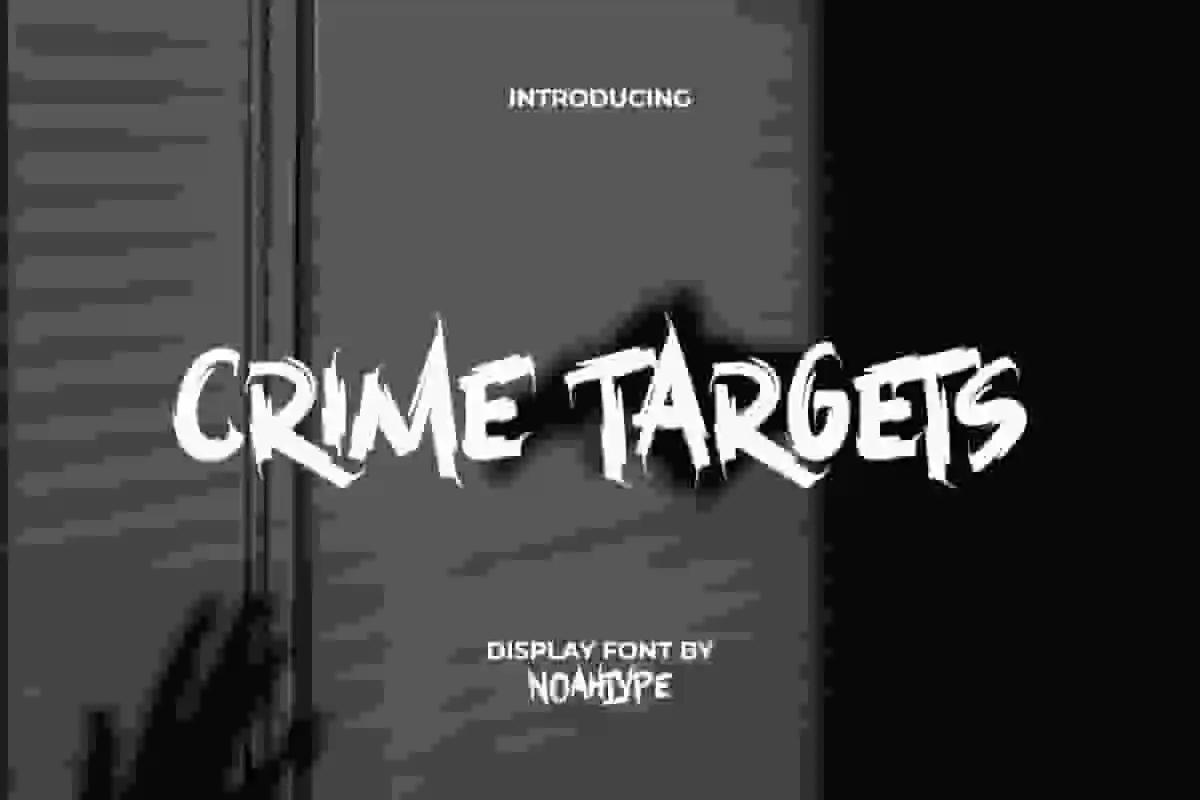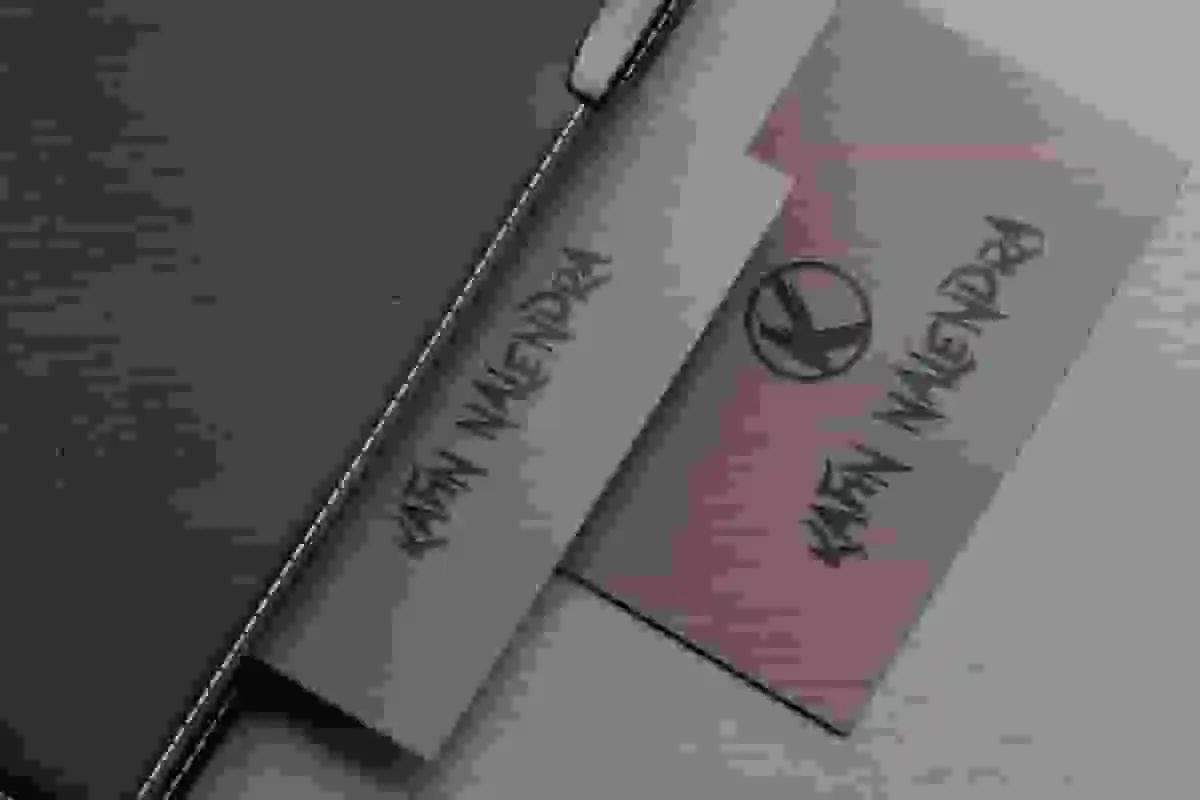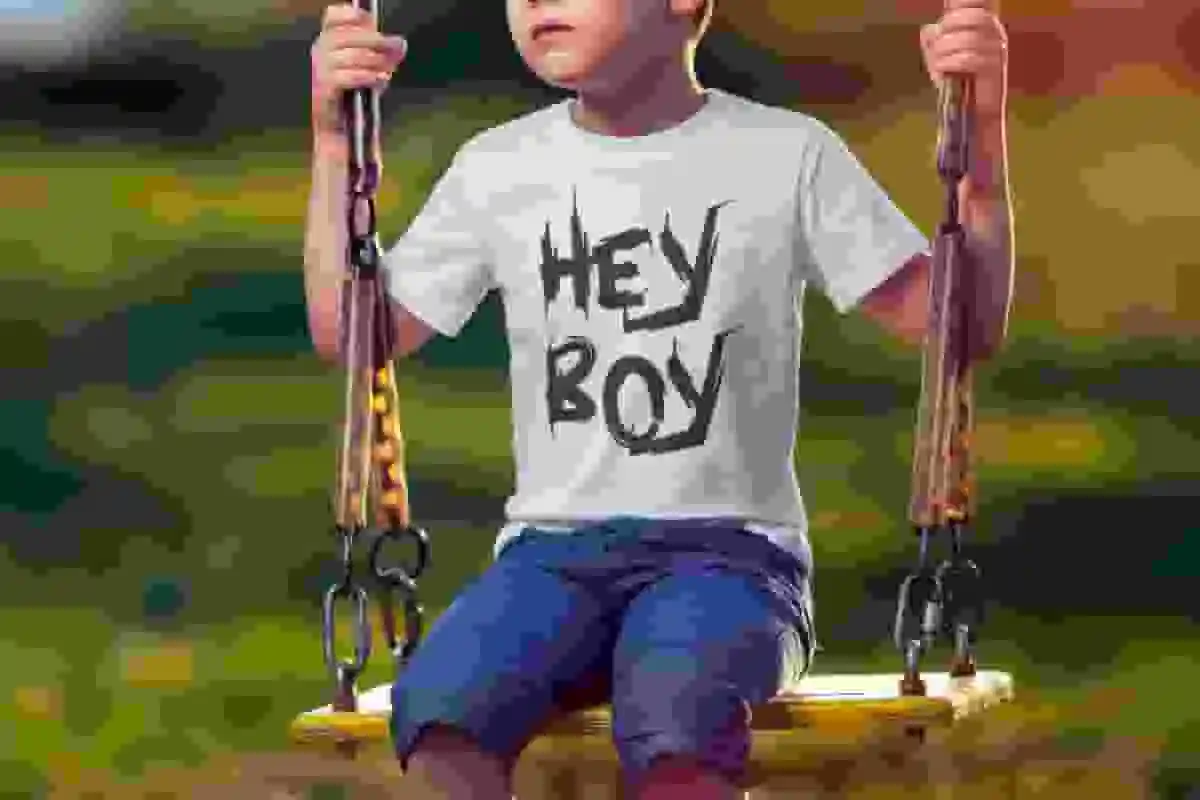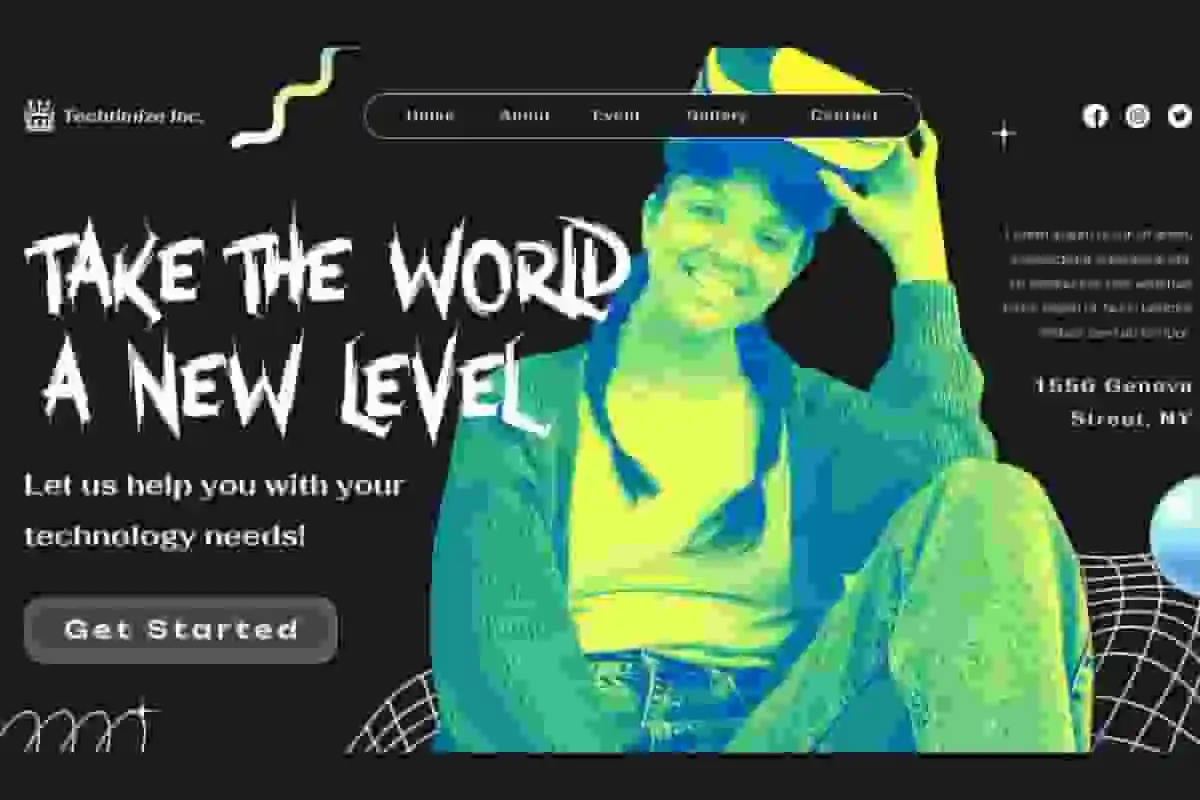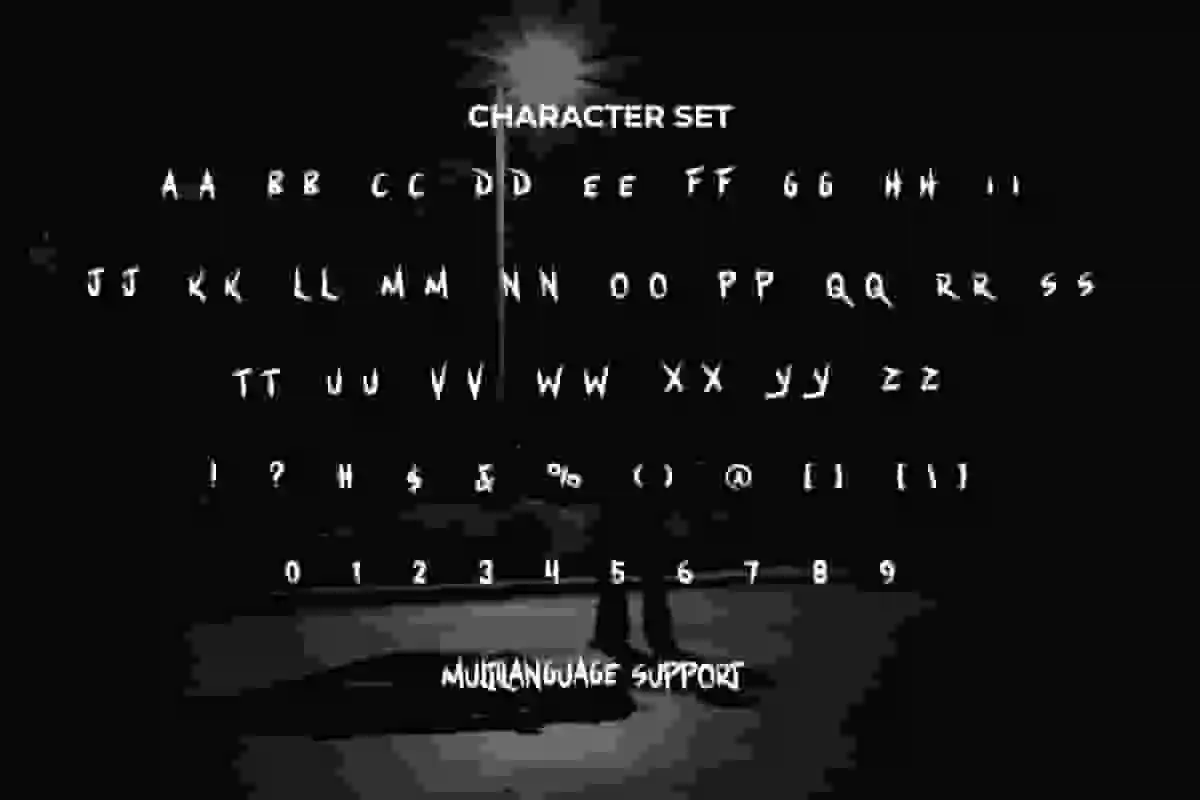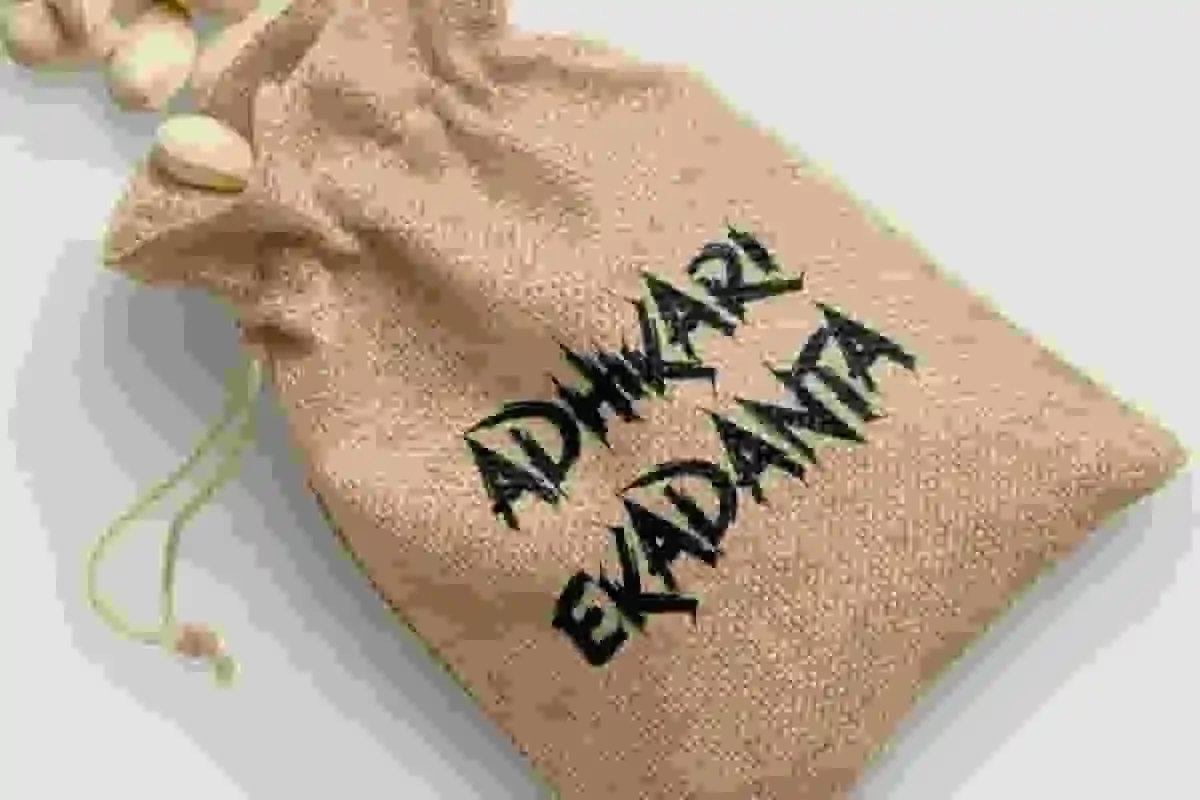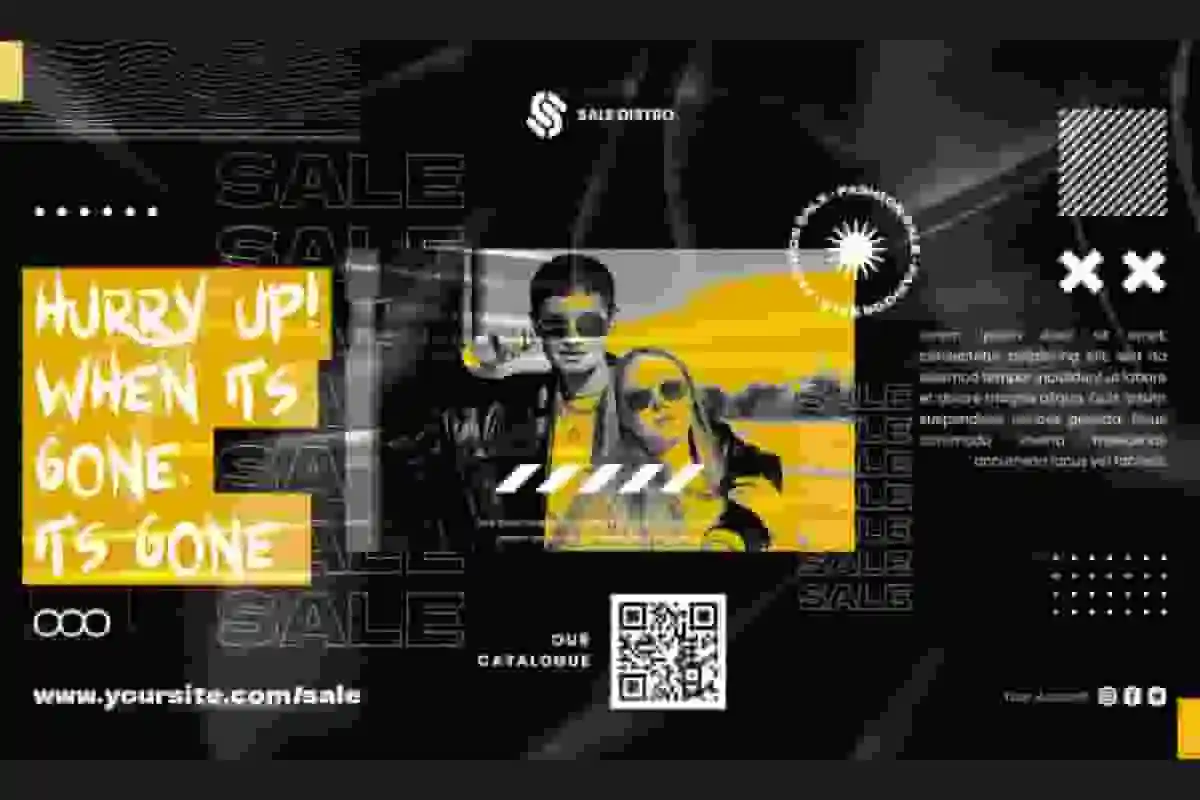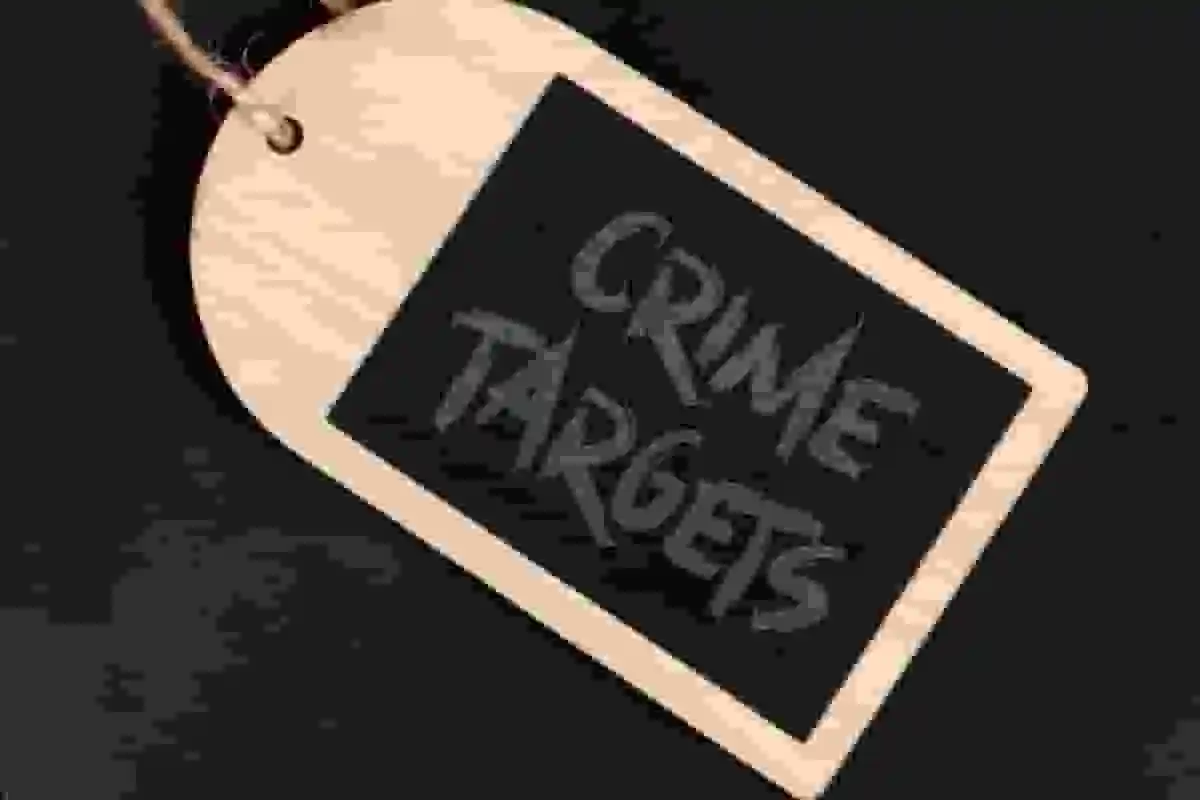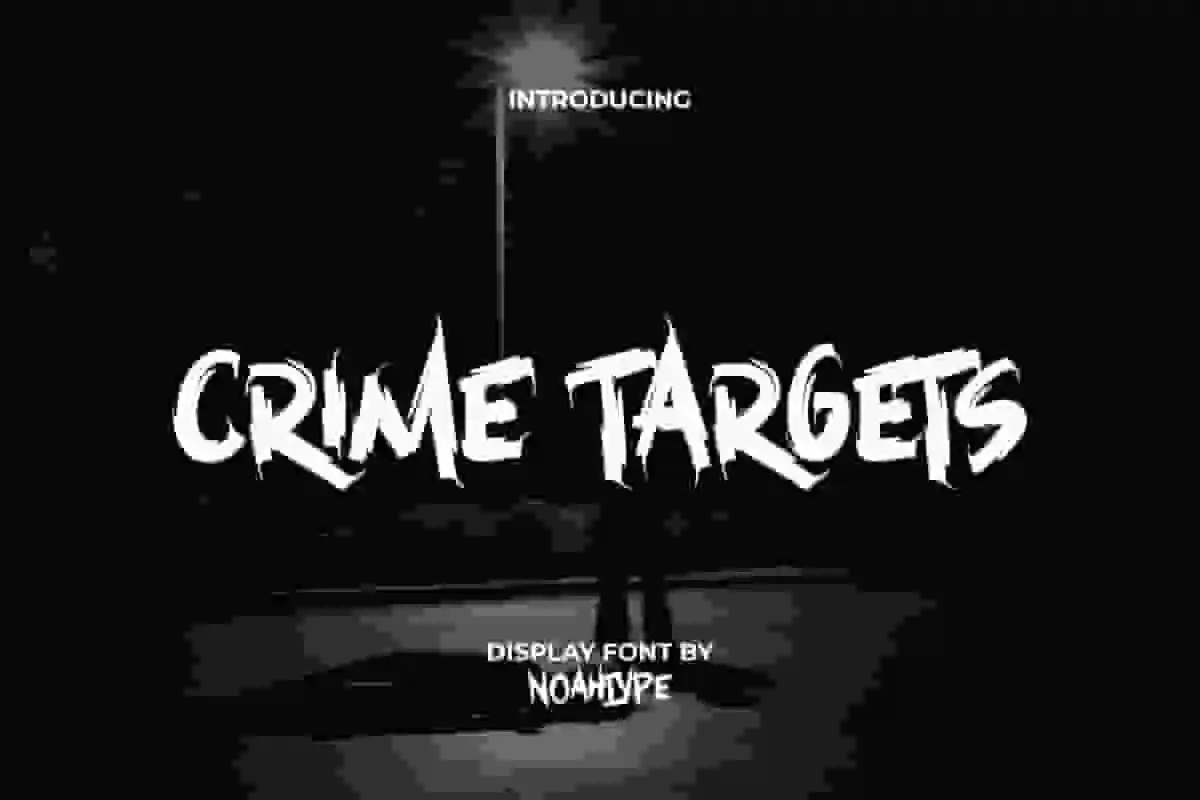
Crime Targets Font is a rough and sharp brush display font, created by NoahType. This font can support designs that carry a horror or mysterious theme by providing a perfect appearance. It will be good for any designs, such as invitation, label, marketing material, poster, brand image, cover, custom design, printing, product packaging, quotes, signage, stationery, website, and many more!
Crime Targets Font includes full set of ALL CAPS for Uppercase and Lowercase Basic Characters, Numerals, Punctuation, and Symbol. This creepy font will make your design awesome and also a perfect choice for many industries, such as fashion, accessories, advertising, event or festival, art, café, game, movie, music, printing, publishing, etc.